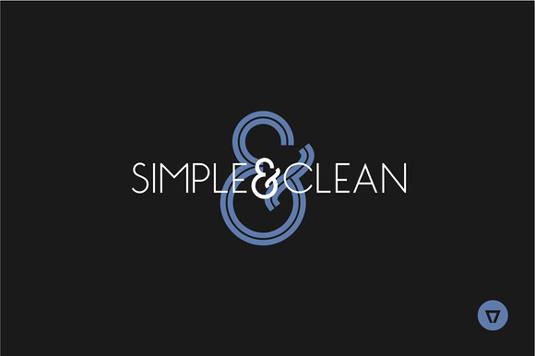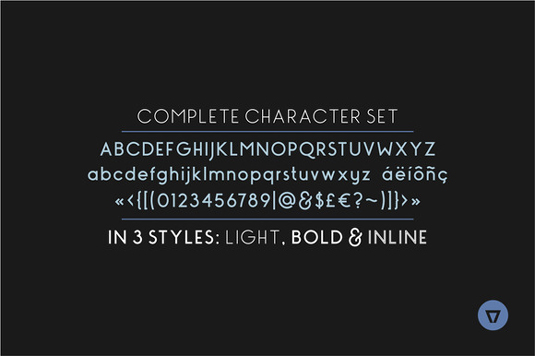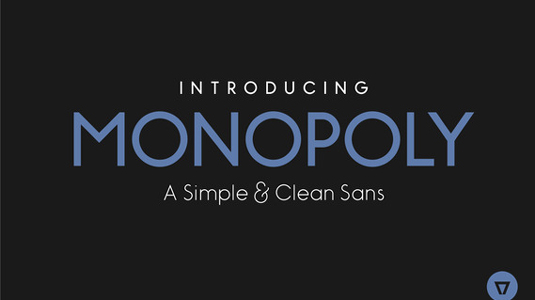
Font of the day: Monopoly
Monopoly from Nima Visual
Today's typeface of choice is Monopoly, a modern, simple and clean sans serif created by the team at Nima Visual. Available in three styles – light, bold and bold inline – Monopoly is versatile and suitable for a variety of print and digital projects.